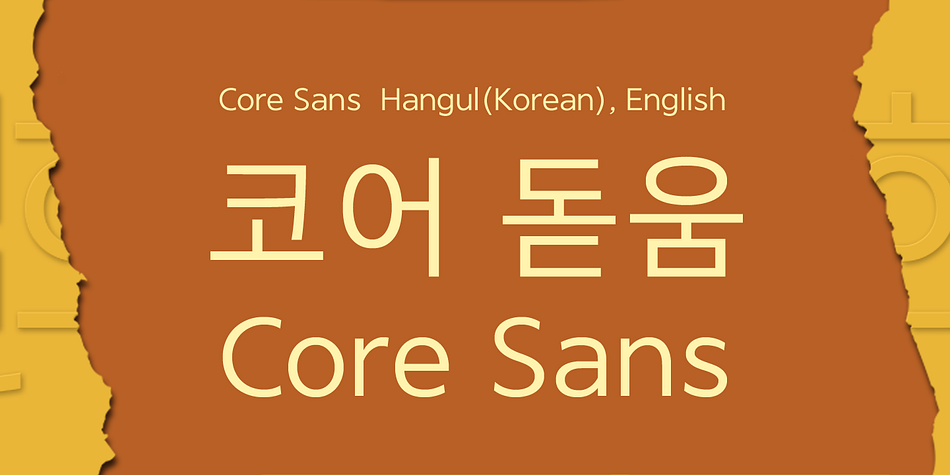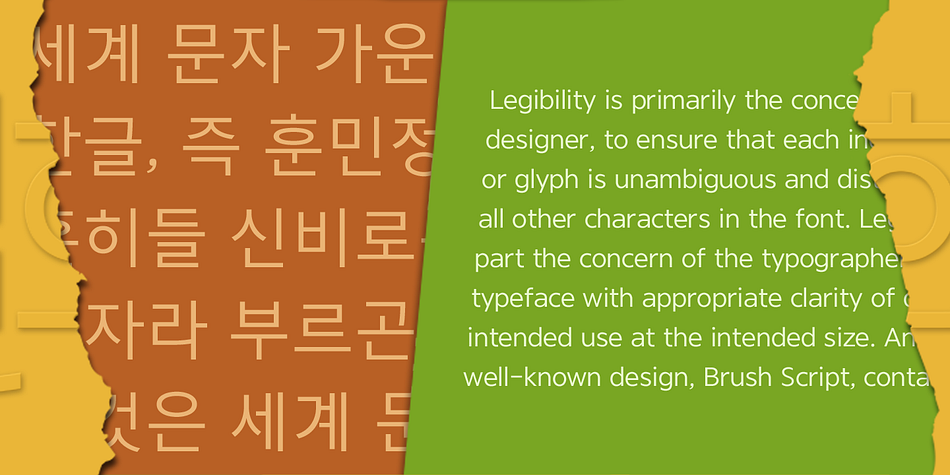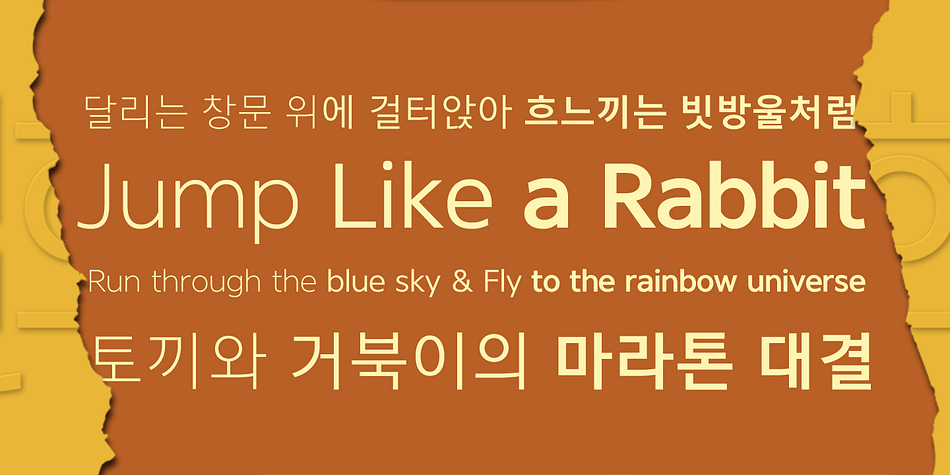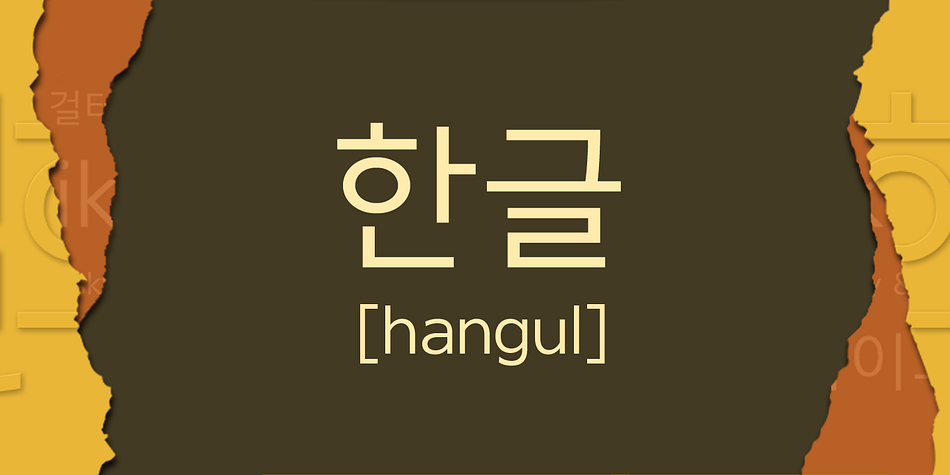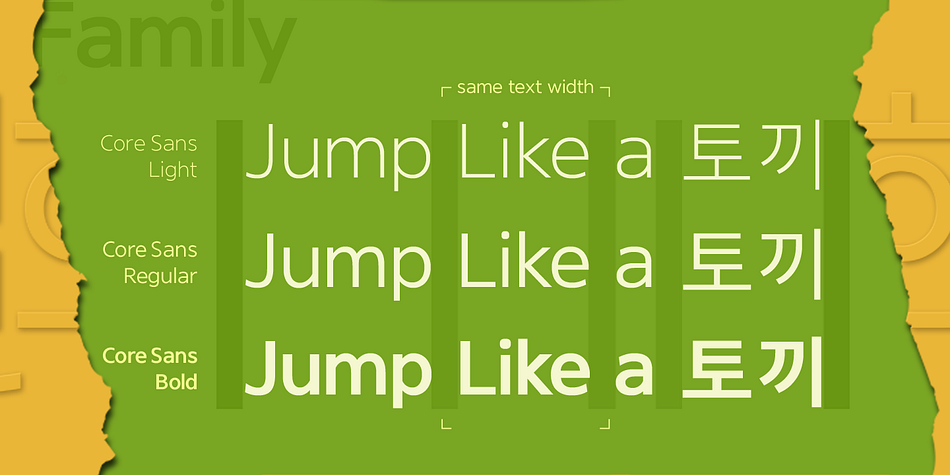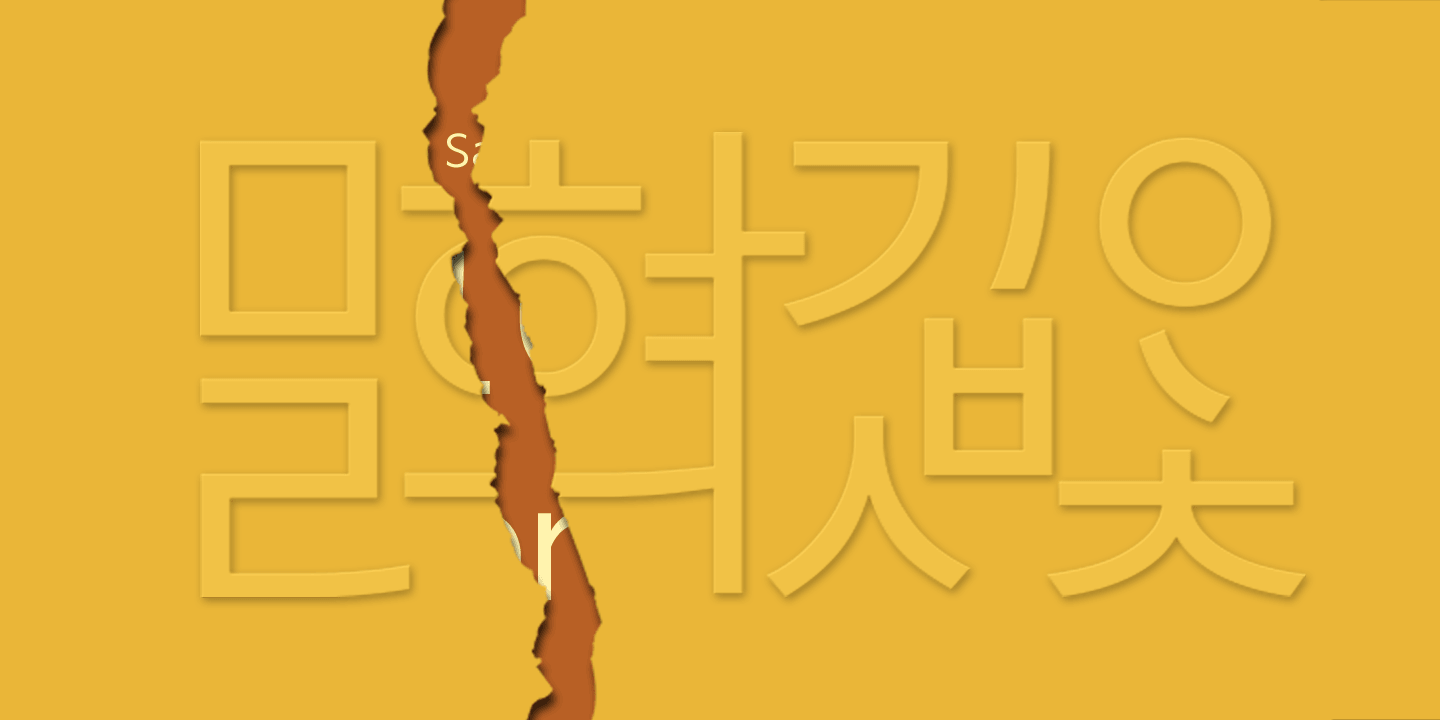
Core Sans is a sans serif font family. This typeface has three styles and was published by S-Core.
Core Sans is a simple and modern sans-serif font. Core Sans’s Latin alphabet has good legibility and is designed simply. Spaces between individual letter forms are adjusted in detail so that it makes perfect typesetting. Supported codepages are MS Windows 1252 Latin1, MS Windows 949 Korean(Hangul) consisting of 11,172 letters and KS Symbols (Korean Symbols). We recommend to use for books, web, screen displays and so on.